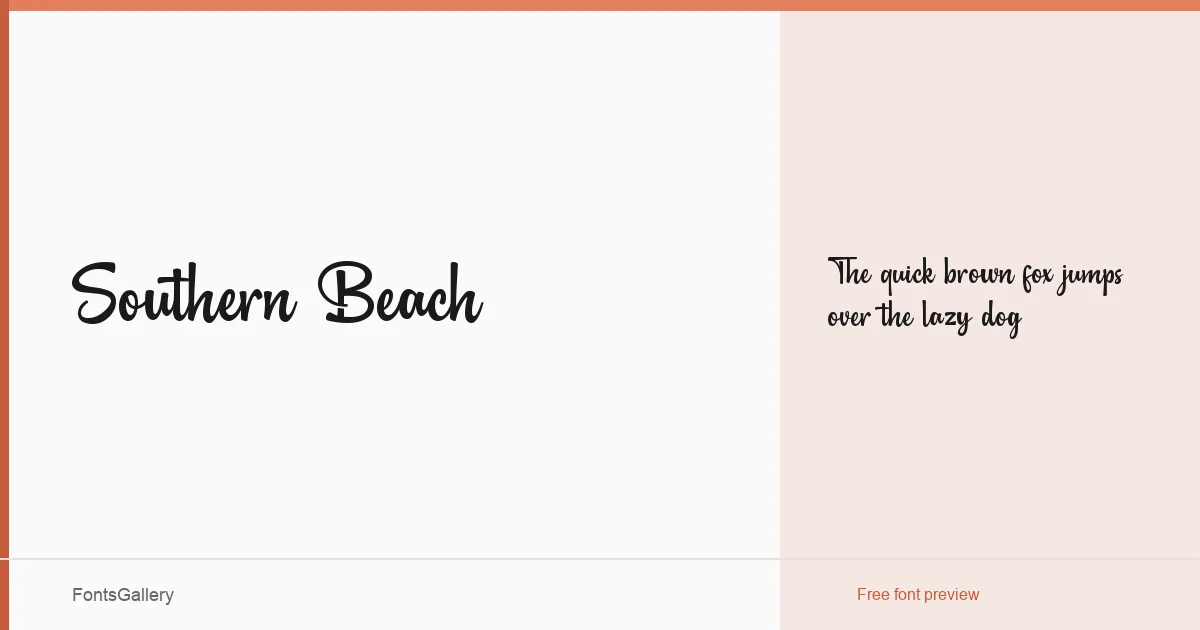
About Southern Beach Font
Southern Beach is an elegant script typeface crafted by designer Muhamad Yusron Billah. Flowing with romantic and classic sensibility, it brings a refined, graceful energy to any design project. Its expressive character makes it an inspired choice for those seeking a timeless, sophisticated aesthetic.
As a script typeface, Southern Beach features fluid, flowing letterforms that embody elegance and romance. Its classic curves and carefully considered strokes evoke a sense of warmth and refinement, lending each character a handcrafted, intimate quality. The overall composition strikes a balance between decorative flair and legible grace.
Southern Beach is ideally suited for logos, wedding stationery, invitation cards, branding projects, and greeting cards where an elegant, romantic tone is desired. Its expressive script style makes it particularly well suited to luxury and lifestyle brands seeking a classic, personal touch. For a harmonious pairing, consider combining it with Aresink for an all-script composition or with Helvetica to create a clean, modern contrast.